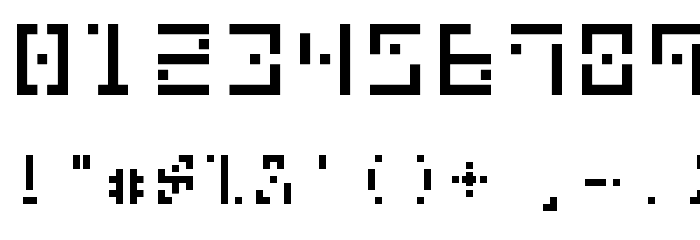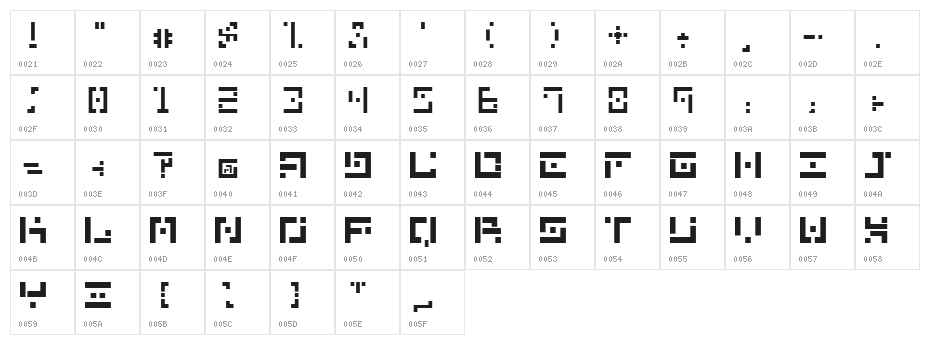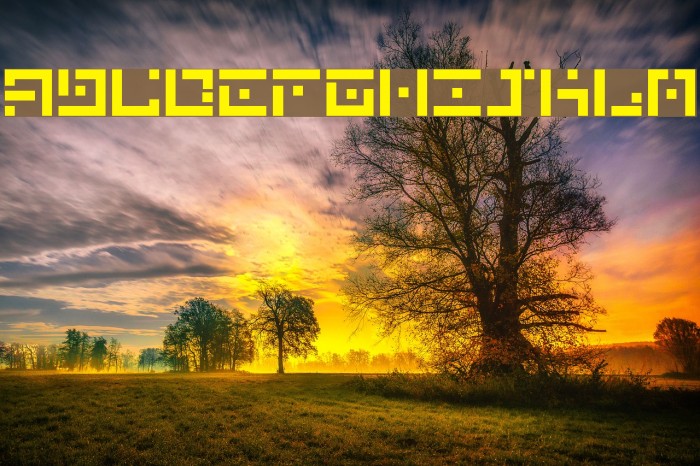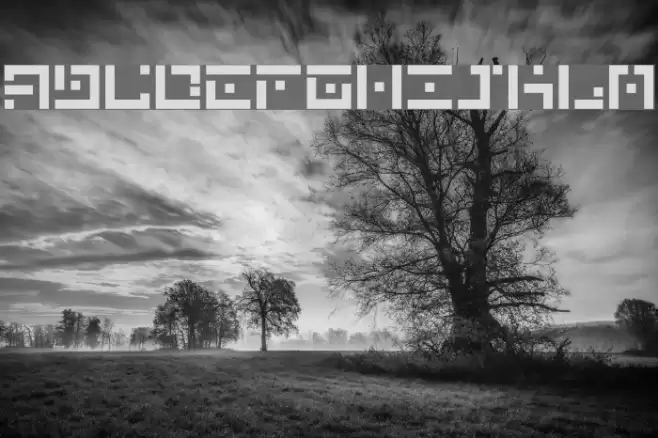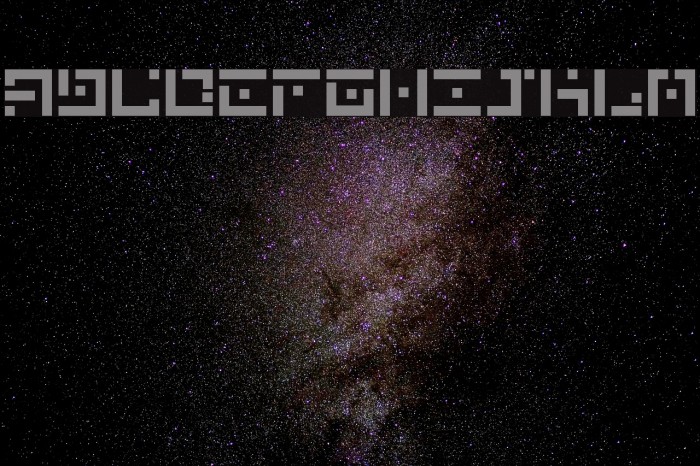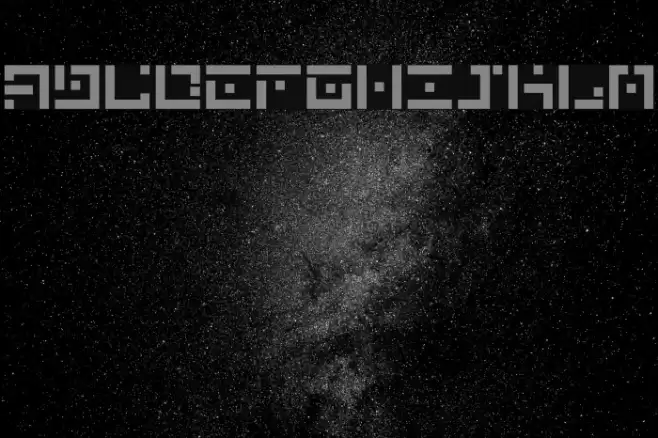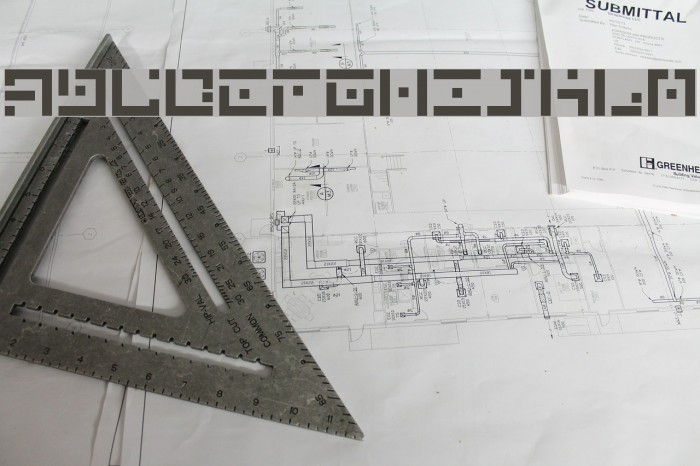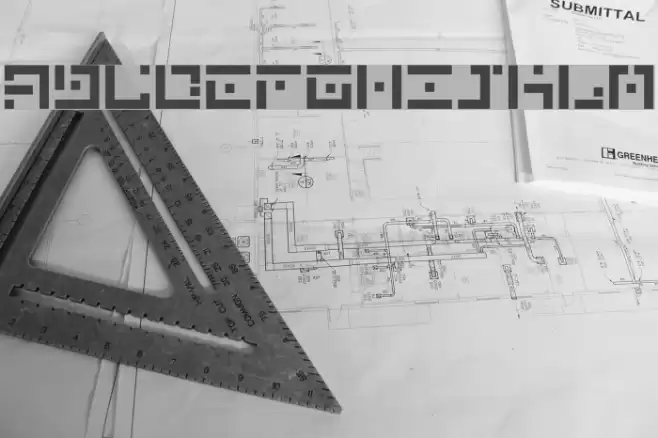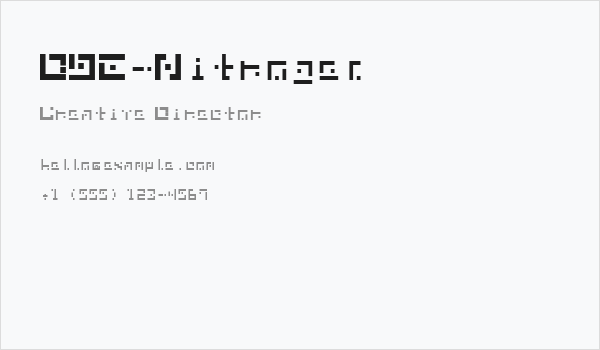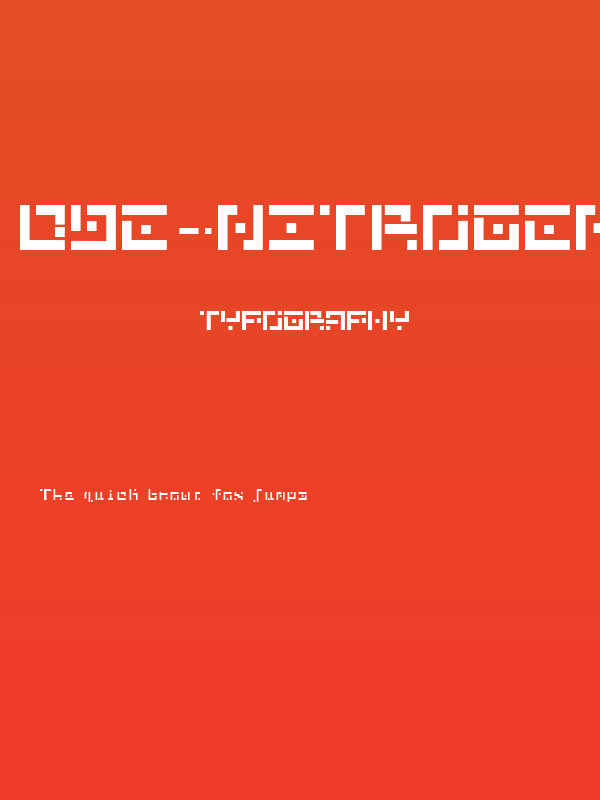
DBE-Nitrogen Font
DBE-Nitrogen Description
This font features a futuristic and geometric design, characterized by its blocky and angular letterforms. Each character is constructed with a series of straight lines and right angles, giving it a digital or pixelated appearance. The uppercase and lowercase letters maintain a consistent style, with minimal differentiation in height, creating a uniform look. The numerals and special characters follow the same design principles, ensuring cohesion across all glyphs. This font's unique style makes it stand out, ideal for projects that require a modern and tech-inspired aesthetic.
| Proposed Projects | Ideal for tech branding, digital art, video game interfaces, and sci-fi themed projects. |